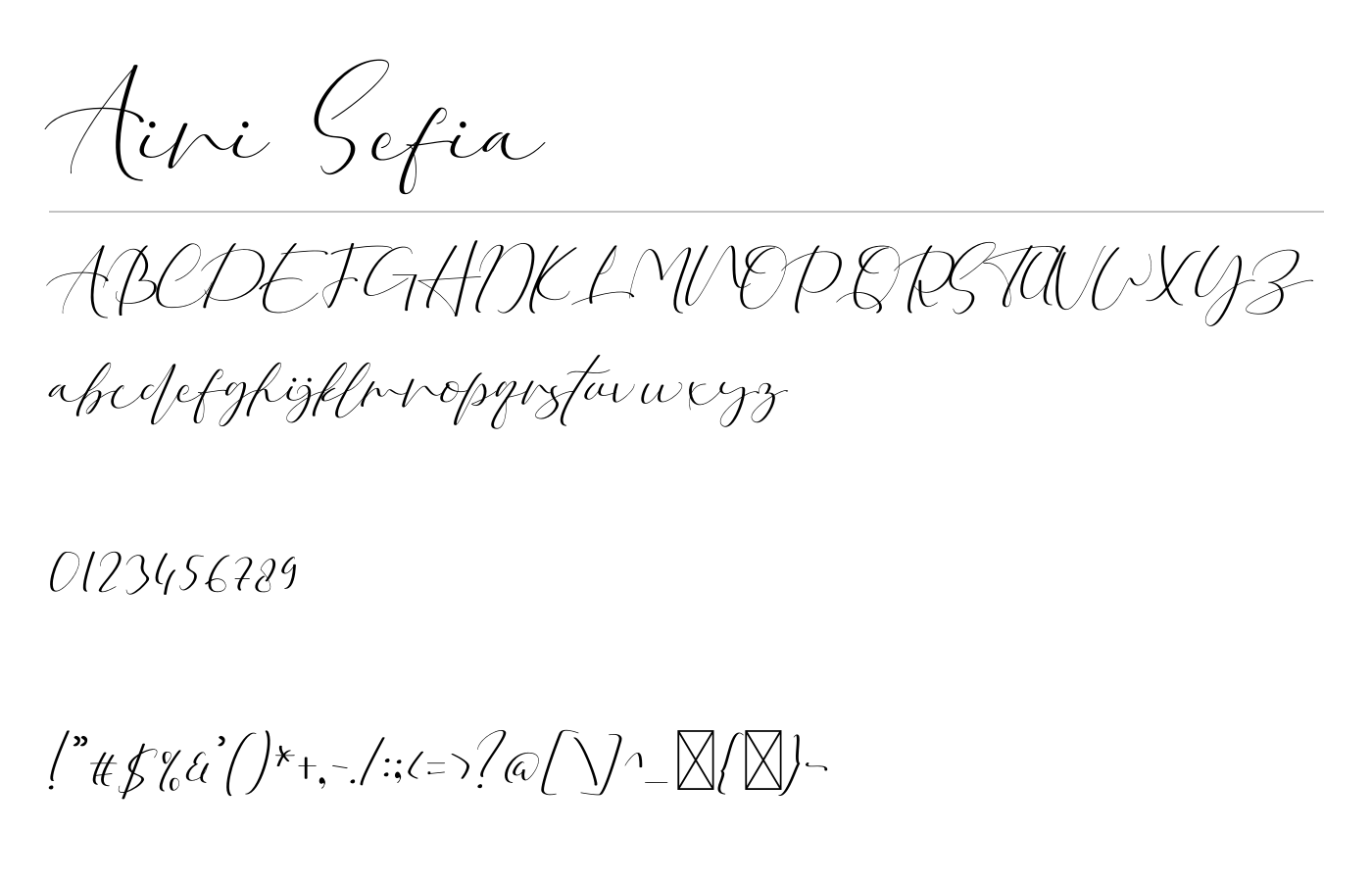
Aini Sefia is an elegant, delicate script font featuring thin, flowing strokes that mimic natural handwriting with a slightly whimsical flair. Its fine, airy letterforms and graceful curves create a sophisticated, romantic feel perfect for wedding invitations, luxury branding, and feminine editorial designs. This font works best in large sizes as a display typeface where its intricate details can shine.
Aini Sefia Font
About Aini Sefia Font